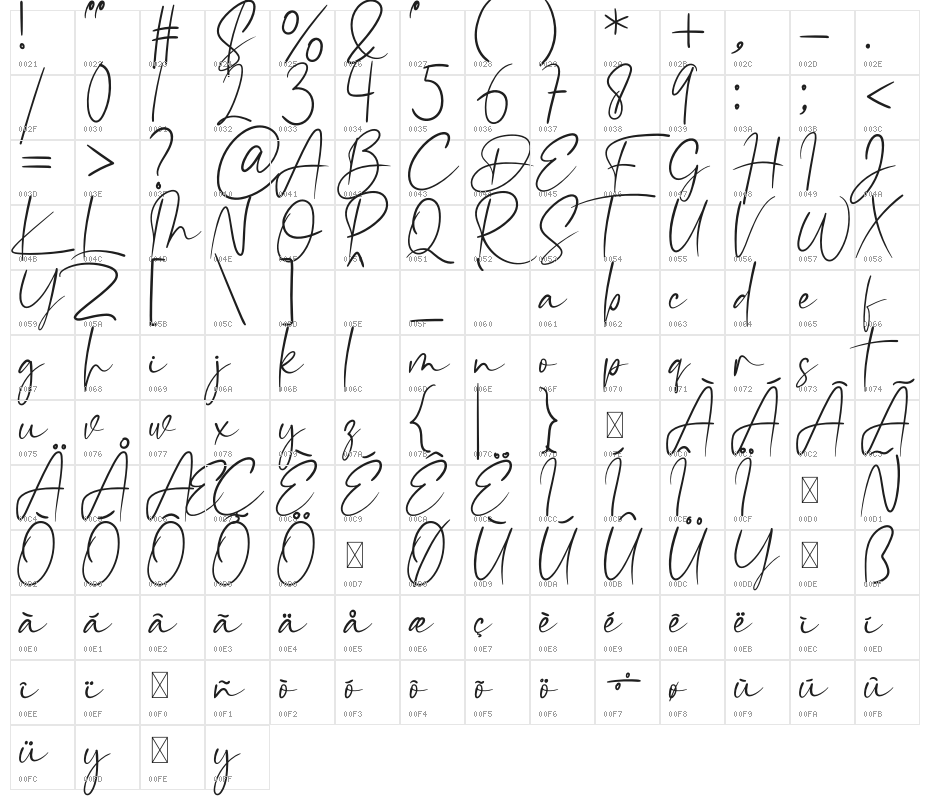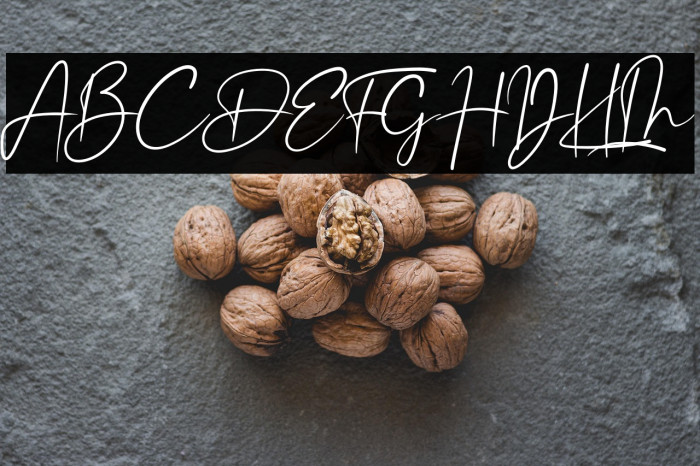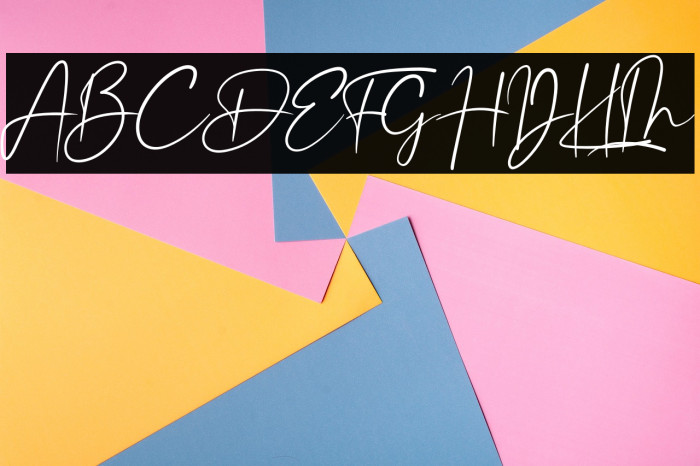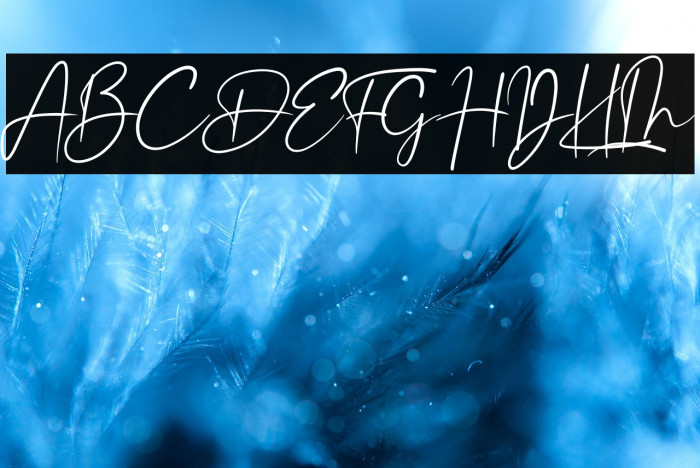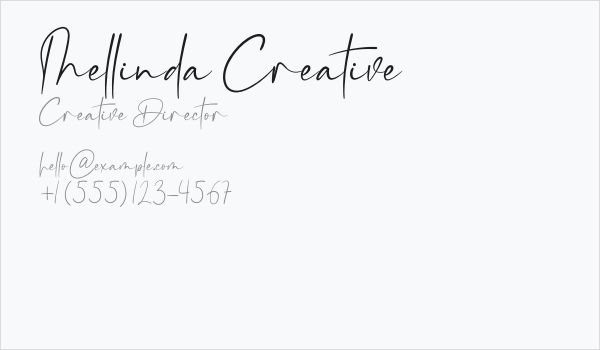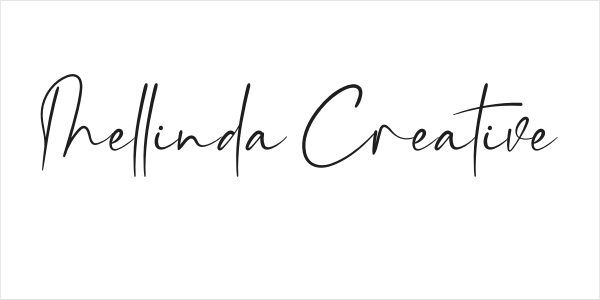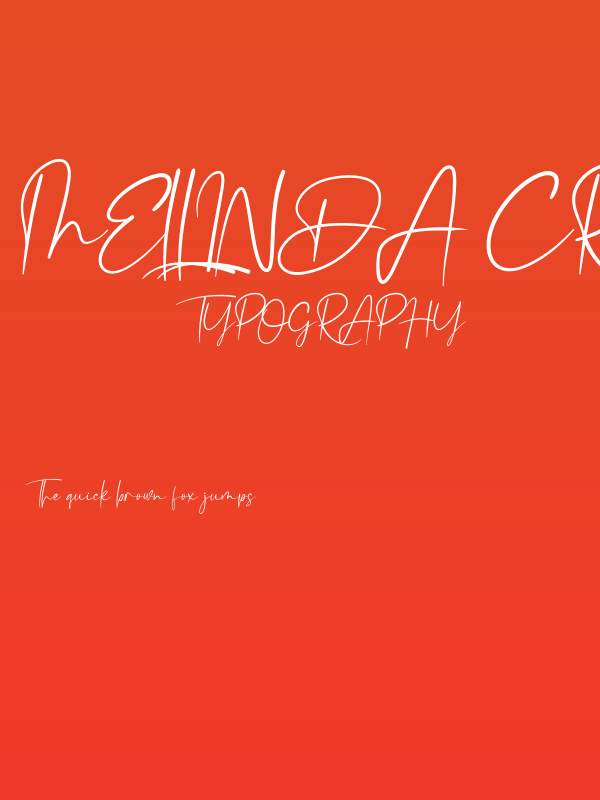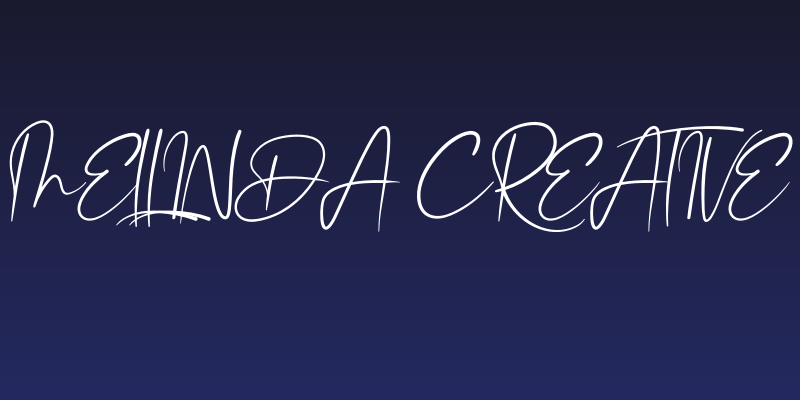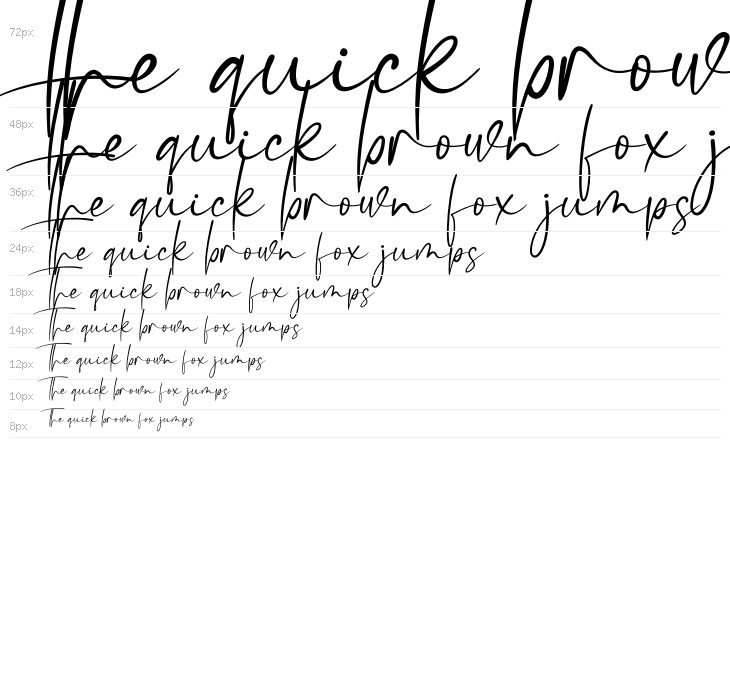
Mellinda Creative Font
Mellinda Creative Description
A flowing, handwritten script font with a casual and artistic style, featuring smooth curves and a natural, organic feel.
| Overall Style | Casual, Artistic |
| Use Case | Logos, Invitations |
| Proposed Projects | Invitations, greeting cards, personal branding. |